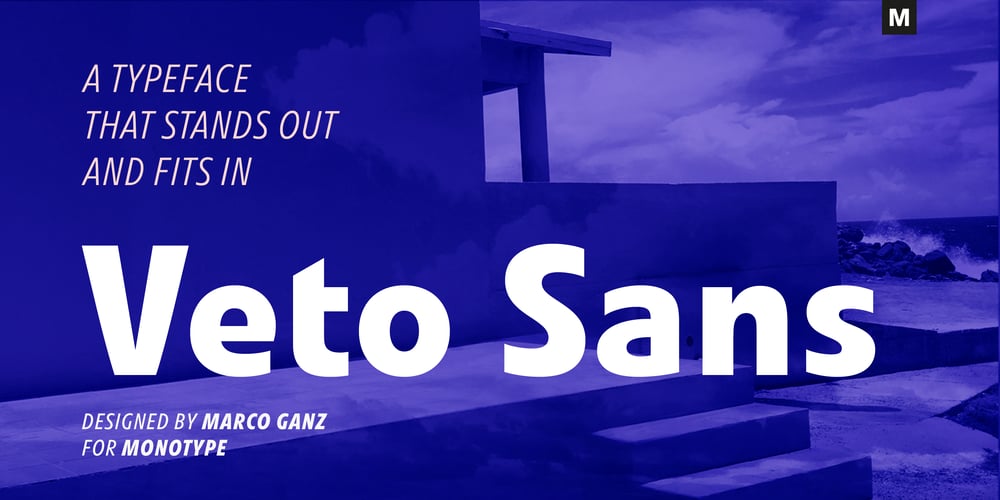
Veto Sans Font Family was designed by Marco Ganz and published by Monotype. Veto Sans contains 16 styles and family package options. Veto® Sans is both highly legible and handsomely distinctive – a rare blend in a typeface. It’s a design that stands out and fits in. Veto Sans is equally competent on screen and in print. It’s four carefully determined weights in both normal and condensed proportions, each with an italic complement, give the family an exceptionally deep range of applications. All the designs in the family are valuable design tools. None are superfluous. Advertising, brand, corporate, editorial and interactive design are all in Veto Sans’ wheelhouse. It also shines in wayfinding and other signage projects. And to all these, it brings a warmth and personality. An ample x-height, open counters, vertical stroke endings and subtly condensed capital letters enable Veto Sans fonts to perform with grace in print and digital environments while being space efficient. An added benefit is that all-capital typography set in Veto Sans is not only space saving, it’s also easy to read. Drawn as a complete reimaging of his earlier Veto design, Swiss designer Marco Ganz worked to create character shapes distilled to their purest forms while maintaining a relaxed and natural demeanor. Ganz, who is also a three-dimensional artist, is acutely aware that the negative space between letters and the internal space within letters is as important as the positive shape of the letters themselves. This dynamic balance between the negative and positive aspects of character forms gives Veto Sans a sense of immediacy without looking hurried. Ganz also took great care to draw a suite of italic designs that not only complement the roman weights perfectly, but also give the family a dynamic verve. A large international character set also ensures ease of localization. “Veto Sans,” says Ganz, “is a typeface for designers that search for a new and different solution to age-old typographic challenges.”